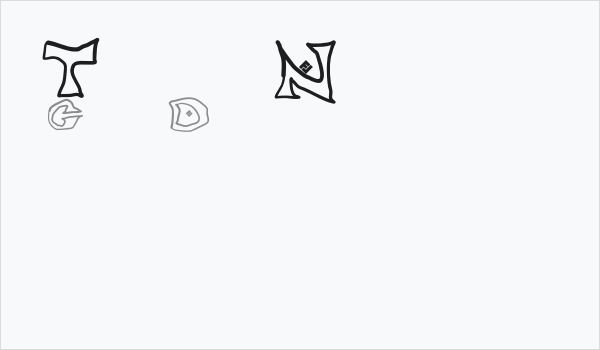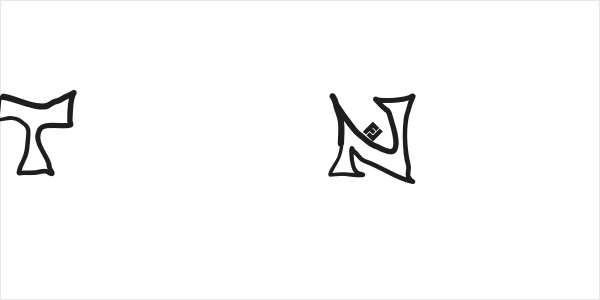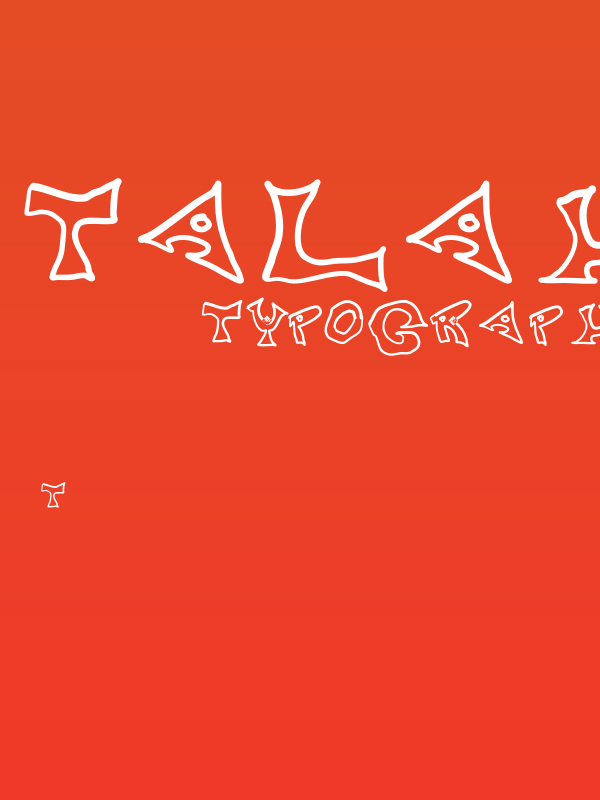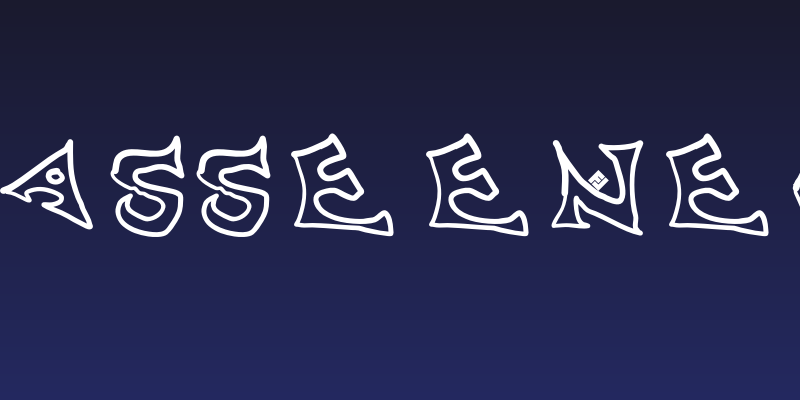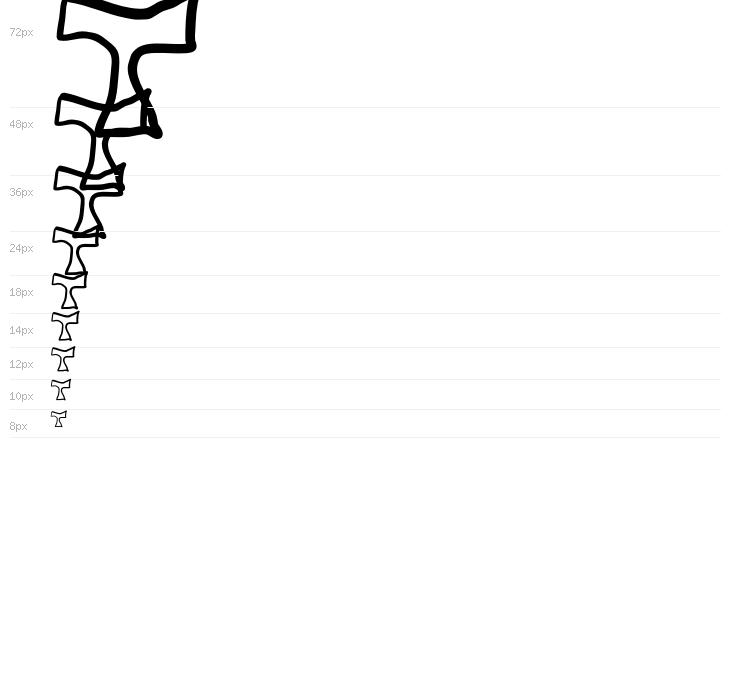
TalahasseeNegative Font
TalahasseeNegative Description
This font features a highly decorative and artistic style, characterized by its irregular and playful letterforms. Each character is uniquely crafted with exaggerated curves and angles, giving it a whimsical and dynamic appearance. The font's design is reminiscent of hand-drawn or graffiti art, with a sense of movement and energy in its strokes. The letters are bold and eye-catching, making them suitable for creative and unconventional design projects. The overall aesthetic is both modern and artistic, appealing to those looking for a distinctive and expressive typeface.
Overall StyleArtistic, Modern
Proposed ProjectsIdeal for posters, album covers, creative branding, and artistic projects.